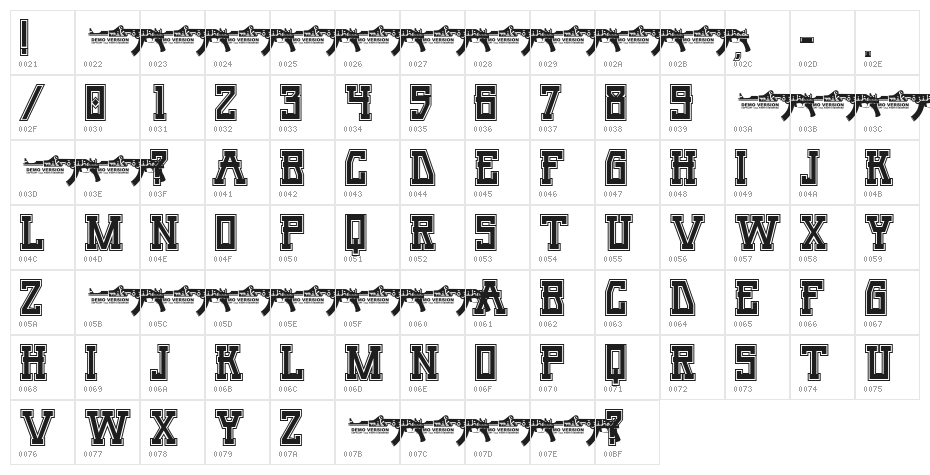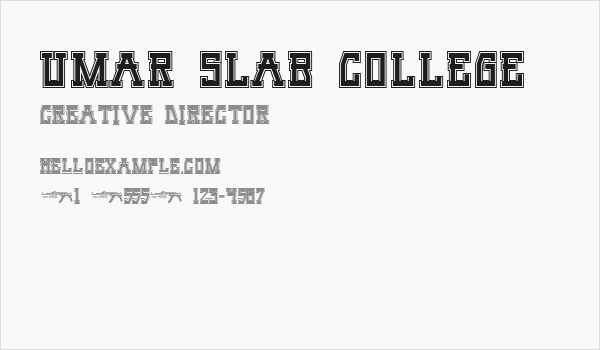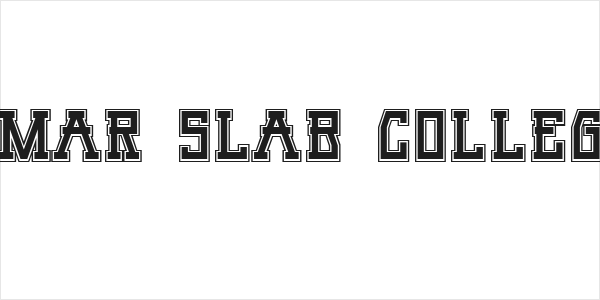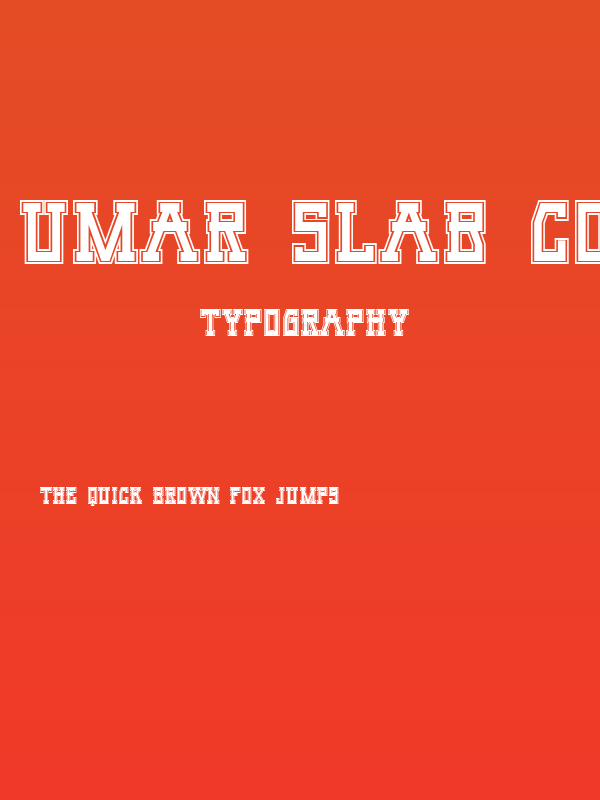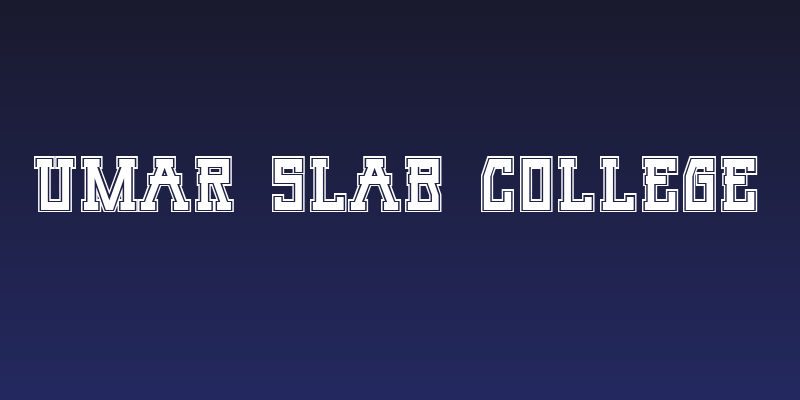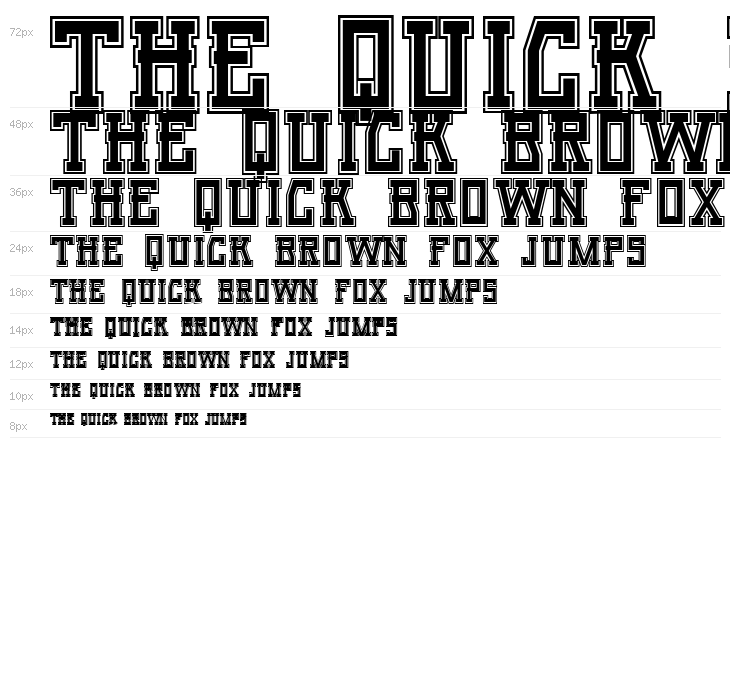
Umar Slab College Font
Umar Slab College Description
This font features a bold and robust slab serif design, characterized by its thick, block-like serifs and strong geometric shapes. The uppercase letters are prominent and commanding, making a strong visual impact. The numerals are equally bold, maintaining the same slab serif style, which ensures consistency across the typeface. The font has a collegiate or sports team aesthetic, often used to convey strength and tradition. The characters are outlined, adding an extra layer of depth and dimension. This style is reminiscent of classic varsity lettering, making it ideal for projects that require a sense of authority and heritage.